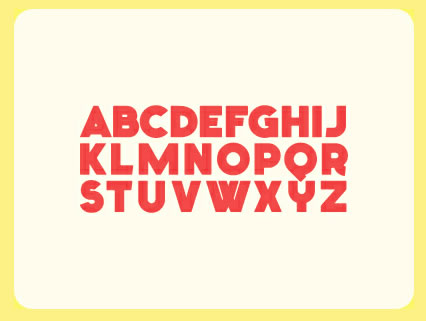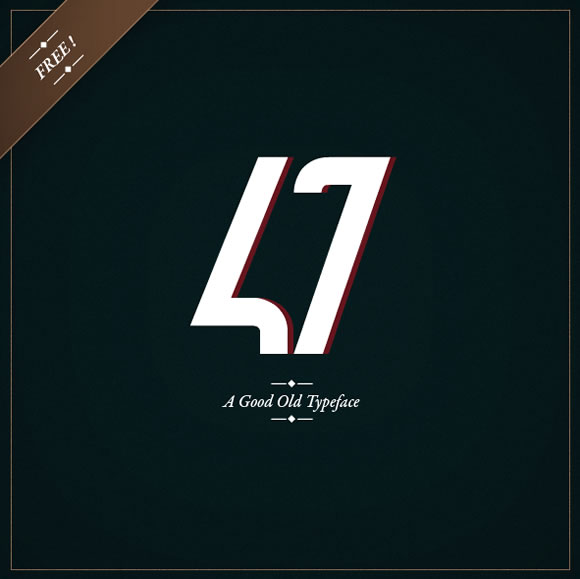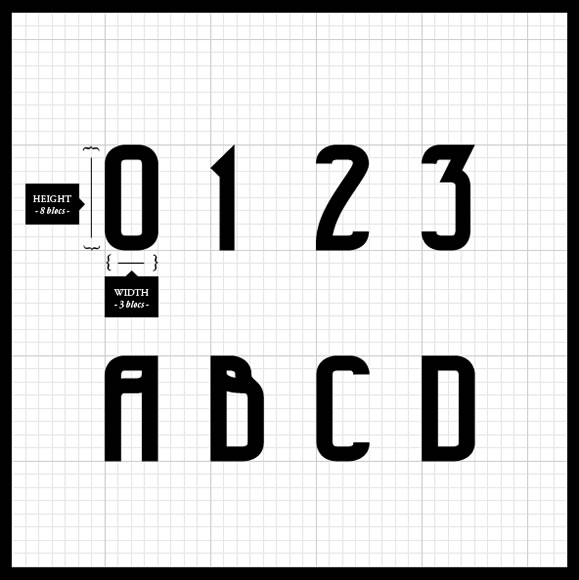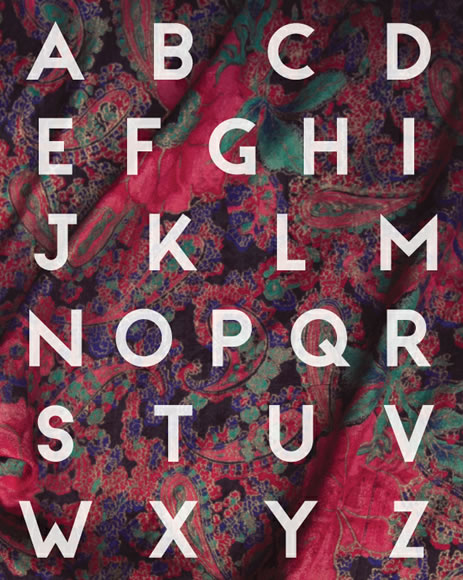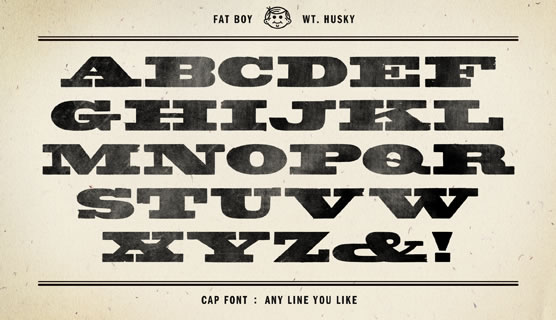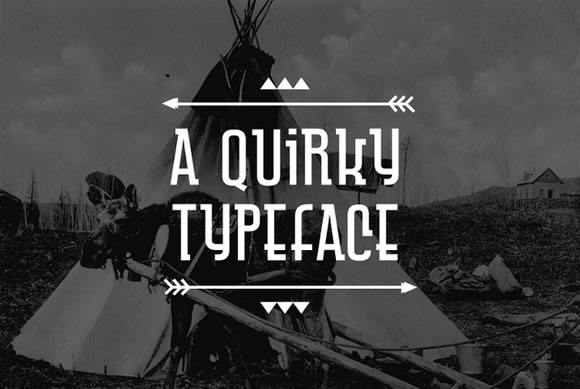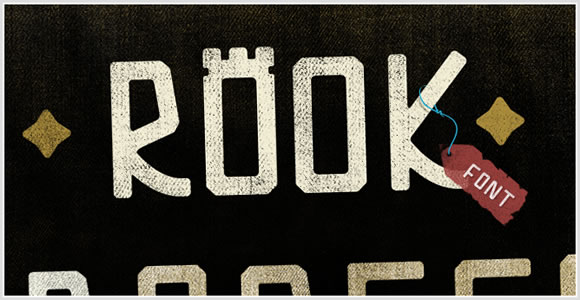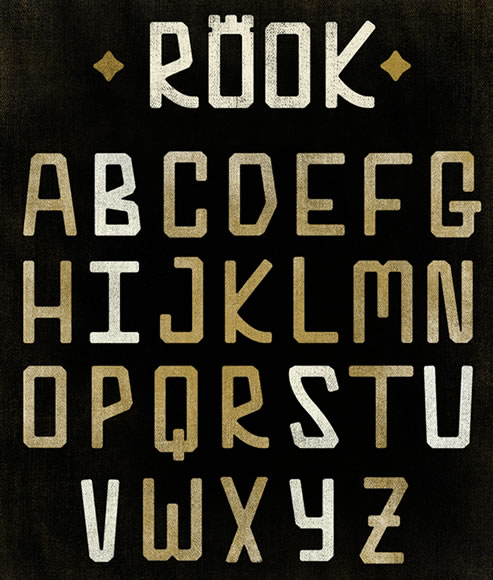
8 Beautiful New Free Fonts
Kocoon Light
FatFrank
Acorn Typeface
47
ZIAMIMI + DAMIER
Fatboy Husky
Baffled
Custom Rook
July 5, 2012Thanks for this list…Really interesting…Some fonts are so original like Acorn and Ziamimi.
July 5, 2012beautiful fonts! Kocoon is just so cool!
Think 47 has gotta be my fave
July 5, 2012Rook is nice!
July 5, 2012I am in love with Kocoon Light. I am making a giant wall clock for our kitchen and this just might be the font for us.
July 6, 2012Thanks. Ziamimi reminds us of Insignia (AKA the typeface used on the Futurama credits), although it’s not the same.
July 7, 2012Custom Rook us awesome font for my new product design..
July 19, 2012WoW, nice set of fonts. I will use Baffled in my project. Thanks for sharing.